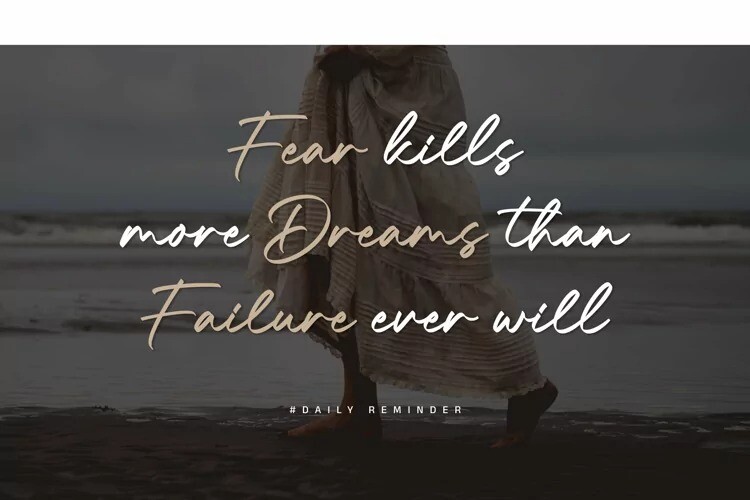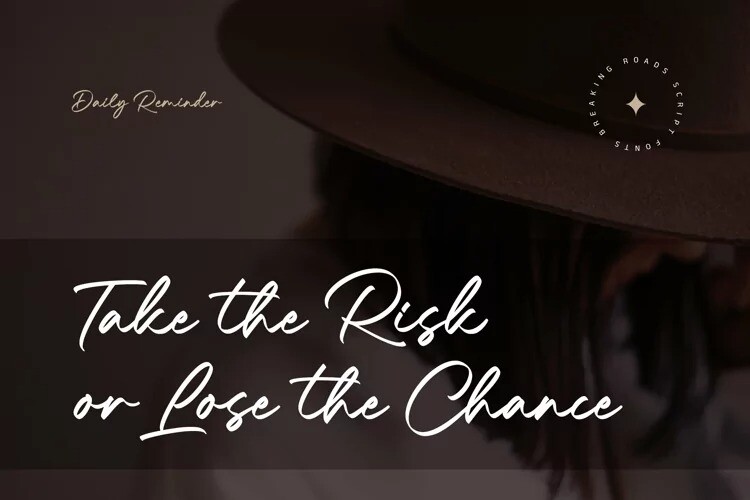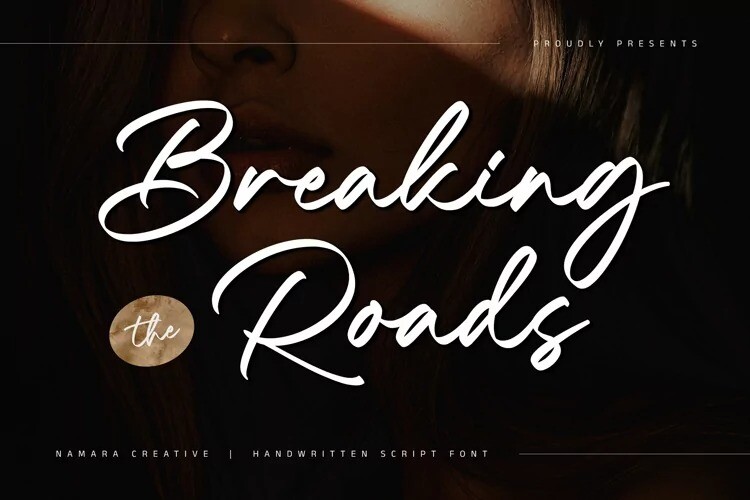
Breaking Road Font is an elegant signature style font crafted & designed by Namara Creative Studio. With graceful strokes and refined curves, this font adds a touch of luxury to any design. Perfect for wedding invitations, greeting cards, and posters to add a sense of informality and warmth. Also can be used in branding and marketing materials to give a brand a more approachable, friendly feel.